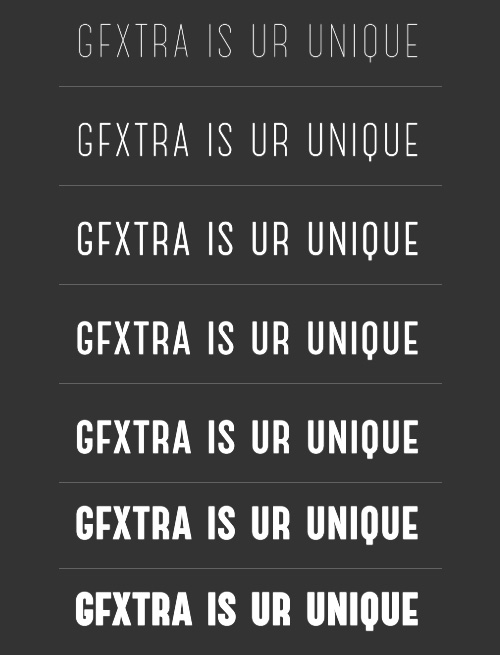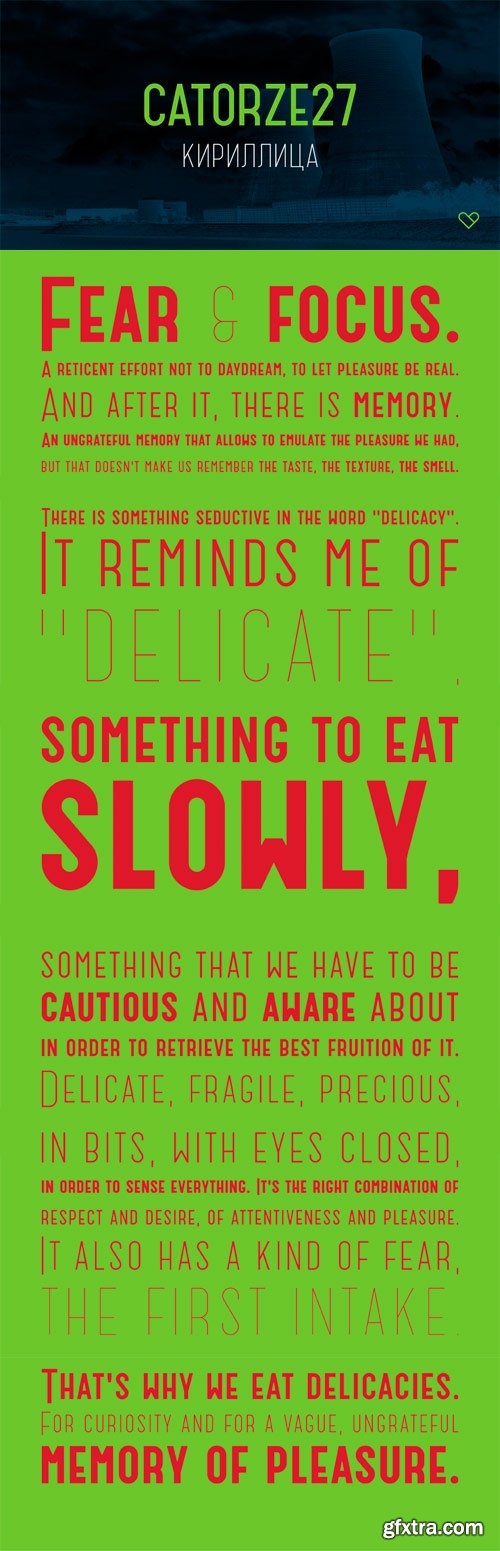
- Catorze27 is a typeface inspired by northern Portuguese modernist lettering. Wrought iron is a widely used element on Portuguese architecture and, as such, the typeface started after collecting several photographs of modernist iron signage in several cities in the north of Portugal, specially in Espinho, Porto, Ponte de Lima and Viana do Castelo. As a result, Catorze27 / Style 1 is the first of 3 styles, featuring 570+ glyphs, 7 weights, case-sensitive forms, 2 styles of numerals in 2 sizes, Greek (Monotonic), Cyrillic and supports most of the Latin Unicode ranges.